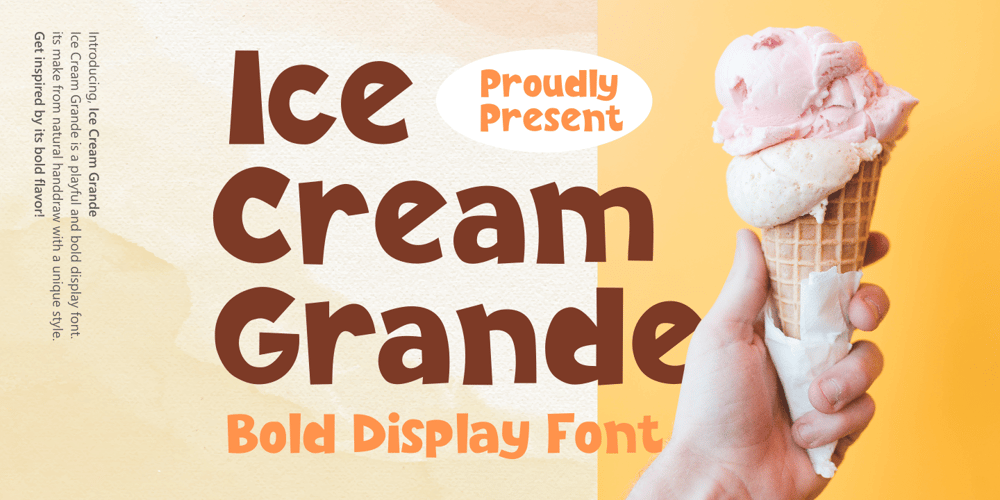
Ice Cream Grande Font Family was designed by Zeenesia Studio and published by Zeenesia Studio. Ice Cream Grande contains 1 styles and family package options. Ice Cream Grande is Display and colorfull font. It was created with freehand handwriting style using a marker. It look classy and happiness to all your designs.You can use this font for a logo, kids clothing, invitation, poster, friendly design, fun design, book cover, adventure poster, outbound poster, and any cute and funny typeface needs and more.It came with number & punctuation, multilingual support, and PUA encodeHope you like this product.